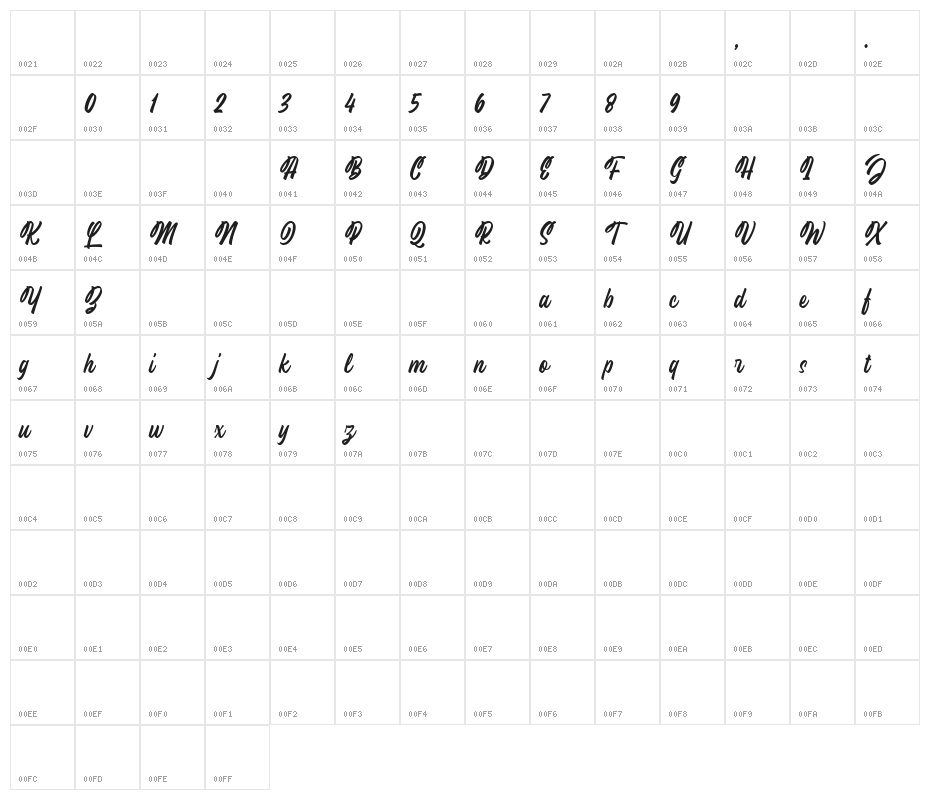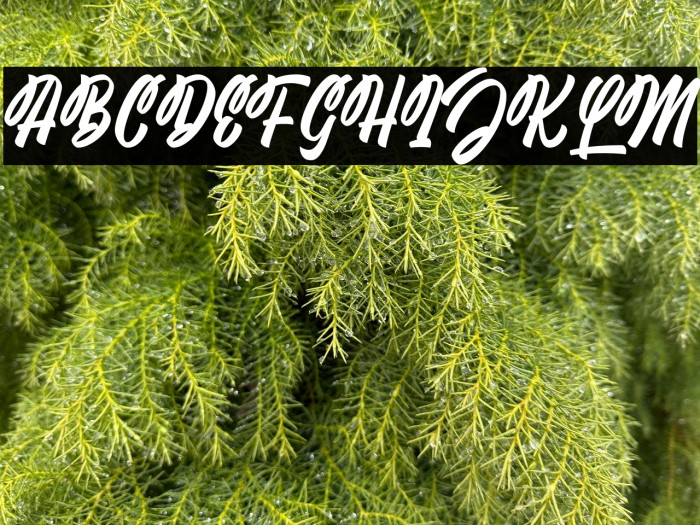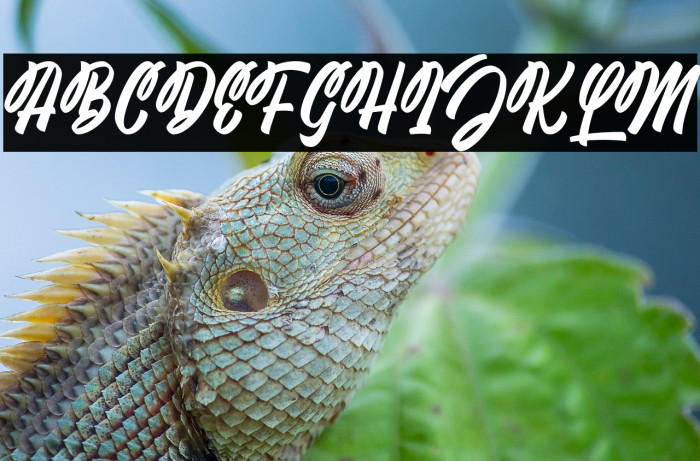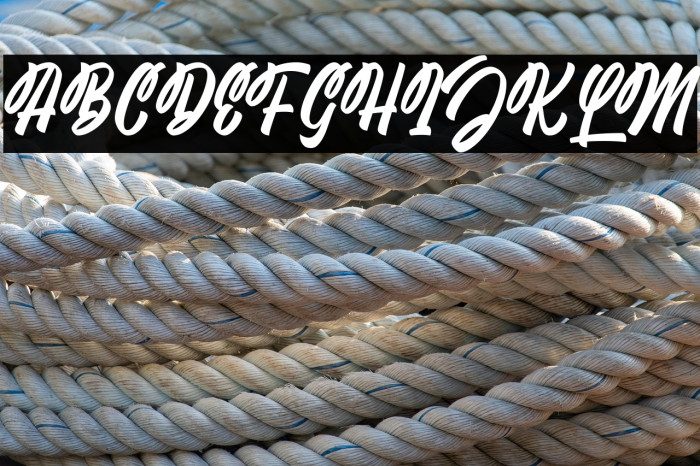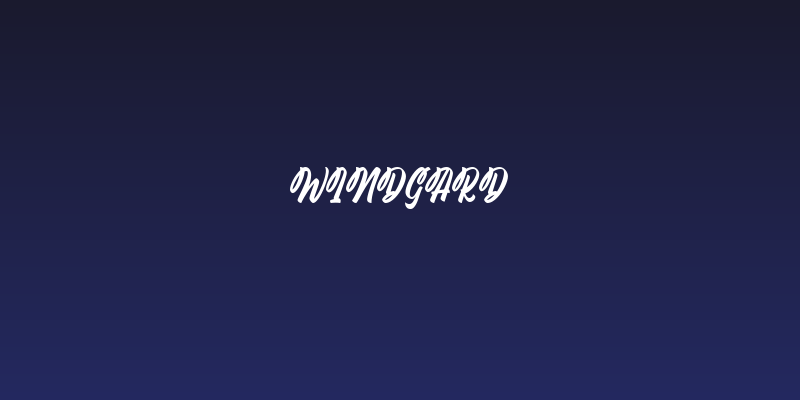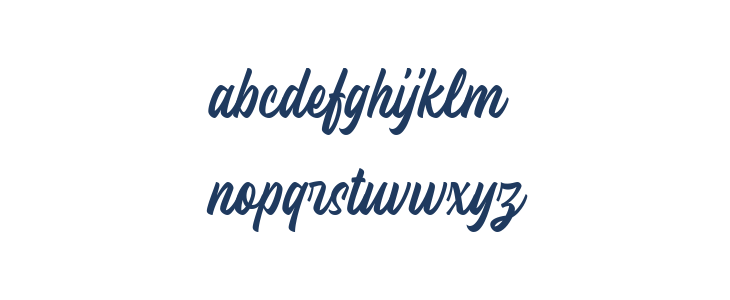
Windgard Font
Windgard Description
This font showcases a dynamic and flowing script style, characterized by its bold and cursive letterforms. The uppercase letters are particularly ornate, with sweeping curves and elegant loops that give a sense of movement and grace. The lowercase letters maintain a consistent style, complementing the uppercase with their smooth, connected strokes. The numerals are equally stylized, maintaining the overall aesthetic of the font. This font is designed to capture attention with its decorative flair, making it suitable for creative and expressive projects. The character spacing is moderate, allowing each letter to stand out while maintaining a cohesive look.
| Use Case | Logos, Headlines |
| Proposed Projects | Ideal for wedding invitations, branding, logos, and decorative headlines. |